HAMLIN - Minimal Geometric Typeface + Web Fonts
HAMLIN is a modern Sans Serif typeface dedicated to minimalism as new design trend. The concept of HAMLIN is inspired from some of the classic geometric fonts but with it's own uniqueness, depth and identity.
HAMLIN will be best suited for creating amazing headlines, clean body texts, minimal logo types and anything that your imagination can bring to life. If you add some letter spacing you will get a unique style that you always find in high profile fashion web stores and minimal portfolio websites. The font comes with 4 weights with all formats including Web Fonts.
MARXURE - A Bold Headline Typeface + Web Fonts
MARXURE is a bold & beautiful headline typeface for modern web and print designs. This font contains only uppercase letters along with all numbers and symbols. The font comes with 2 weights with all formats including Web Fonts.
Nerve pro - Typeface + Web Fonts
Nerve Pro Sans Typeface
Nerve Pro is a modern and Minimal Sans Serif typeface with for Minimal typography designs, Nerve Pro can keep the minimalism at its level best and is a Perfect choice for, Display, headlines, paragraph, subheading, notes, Big Banners. Classic & Decorative Typography Designs.
Kyrion Pro Typeface + Web Fonts
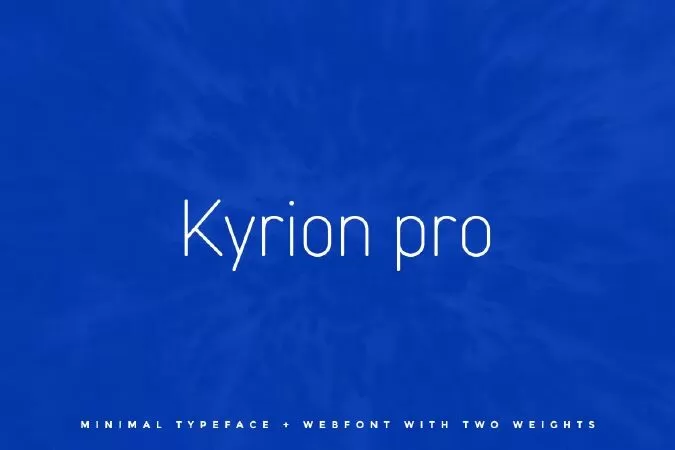
Kyrion Pro Sans Typeface
Kyrion Pro is a modern and Minimal Sans Serif typeface with Two Weights, Kyrion Pro can keep the minimalism at its level best and is a Perfect choice for, Display, headlines, paragraph, subheading, notes, Big Banners. Classic & Decorative Typography Designs.
Friary Pro Typeface + Web Fonts
Friary Pro Sans Minimal Typeface
Friary Pro is a modern and Minimal Sans Serif typeface, Friary Pro can keep the minimalism at its level best and is a Perfect choice for, Typewriter, headlines, paragraph, subheading, notes, Big Banners. Classic & Decorative Typography Designs.